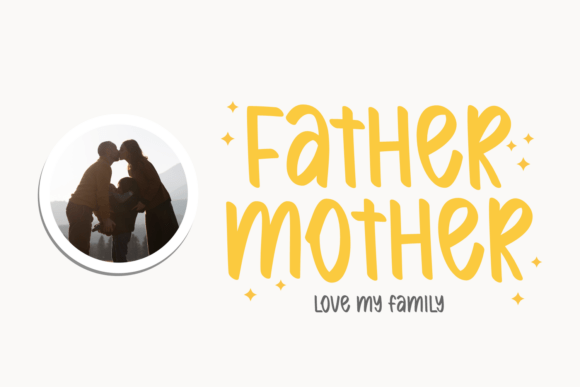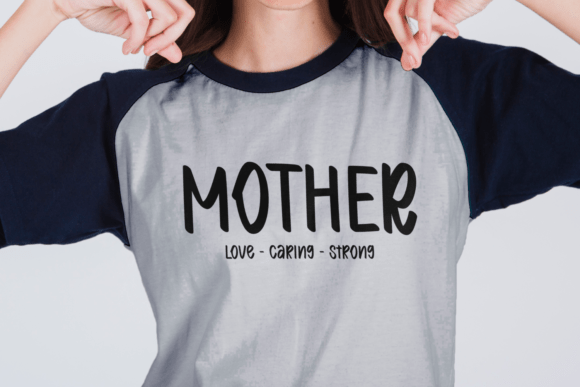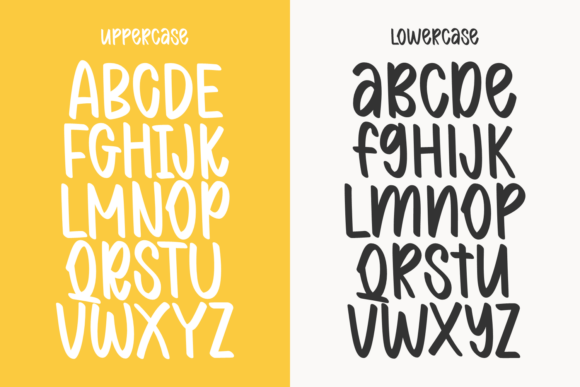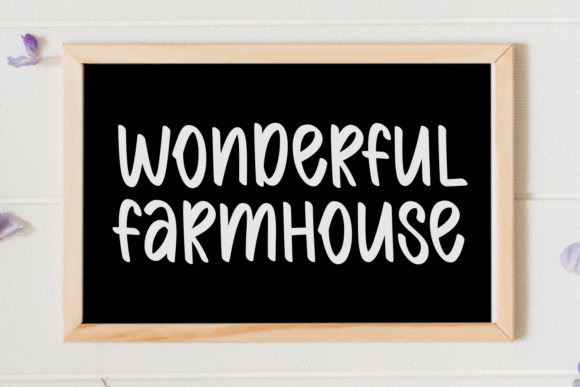
Introduction to Smart Styles Font
Smart Styles – Playful Handwritten Typeface Smart Styles is a bold and energetic handwritten display font designed to bring fun and friendliness into any project.
With its casual strokes, rounded terminals, and dynamic flow, this typeface captures a modern handcrafted vibe perfect for both digital and print use ✦ Key Features: Style: Playful handwritten/casual brush Character Set: Basic Latin (A–Z, a–z), numerals (0–9), punctuation & symbols Alternates & Ligatures: Includes stylistic alternates for selected letters and natural letter ligatures to enhance handwritten authenticity Multilingual Support: Extended Latin characters to support multiple languages Formats: OTF, TTF ✦ Technical Details Weight: Regular (suitable for bold display use) Contrast: Low – consistent stroke width for a clean, playful look Spacing: Optimized kerning for readability in large text sizes Best Use: Logos, quotes, posters, social media graphics, children’s book titles, packaging.